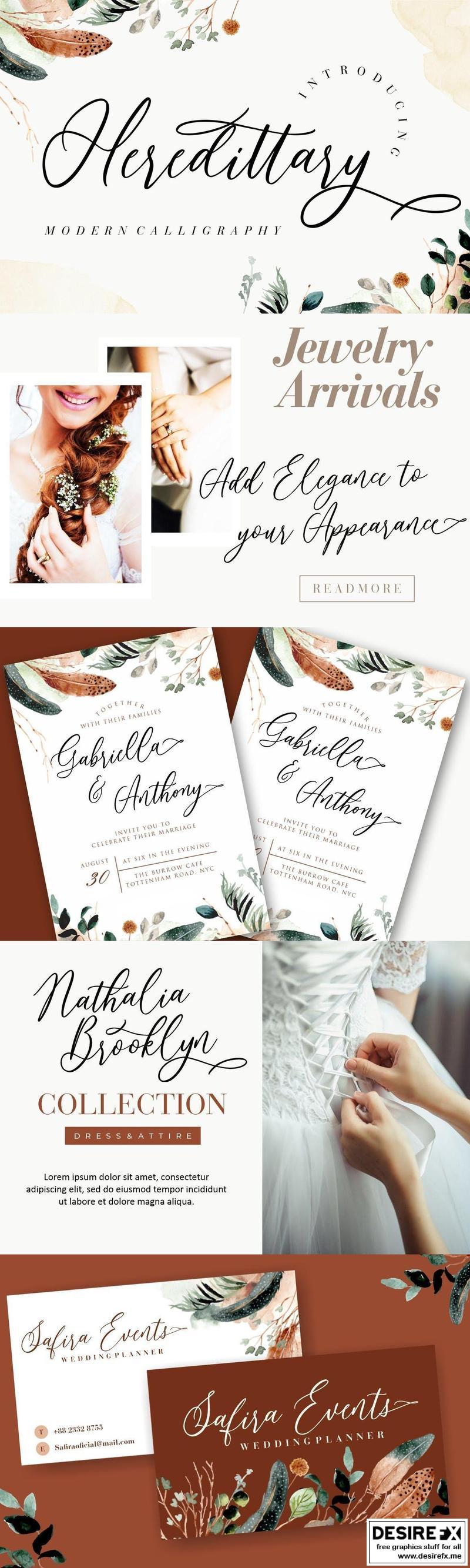
Heredittary Modern Calligraphy ESPXASJ
Heredittary is a modern calligraphy font which an elegant and classy style.
Heredittary is perfect for branding projects, logo, wedding designs, social media posts, advertisements, product packaging, product designs, label, photography, watermark, invitation, stationery and any projects that need handwriting taste.
- Ton of glyphs
- Ligature & Alternate